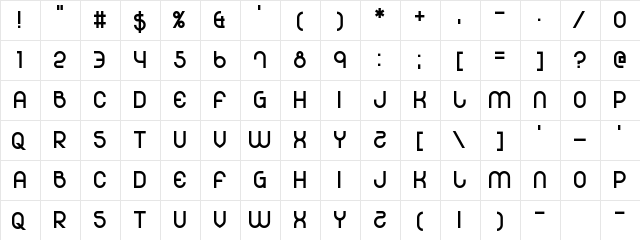
501 Regular
| Designer | NAL |
Design Context for 501 Typeface
501 takes a measured approach to typography — its balanced proportions and neutral character make it a reliable workhorse for both digital and print work.